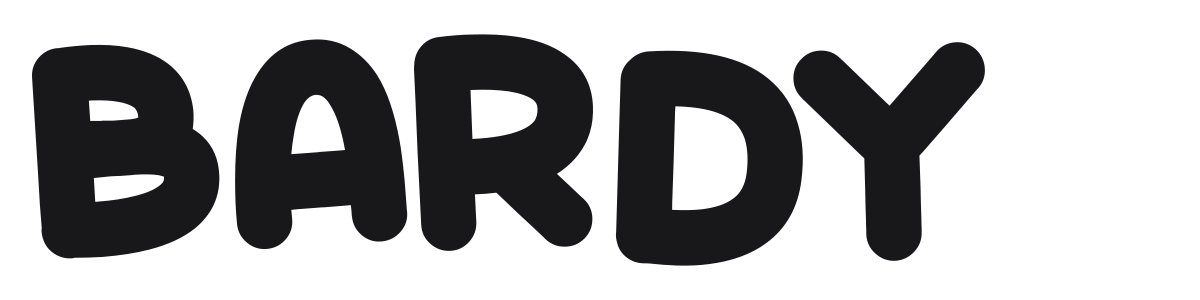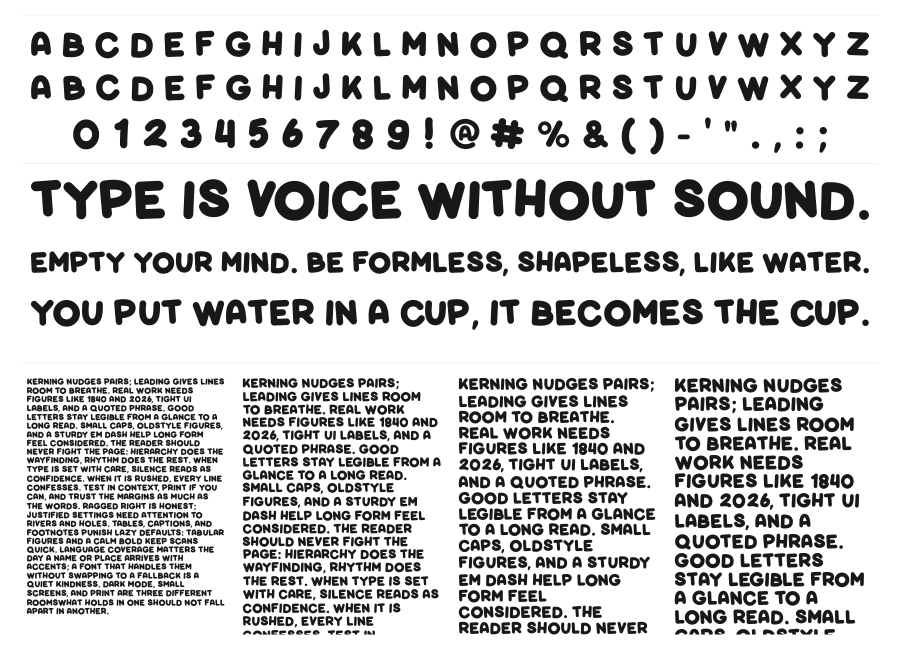
Bardy
Bardy is a bold, bubbly display font with thick rounded strokes and a cheerful cartoon personality. Every character feels inflated and soft, making it a natural choice for children's branding, game titles, and packaging that needs a friendly, approachable tone. The heavy weight commands attention without feeling aggressive.